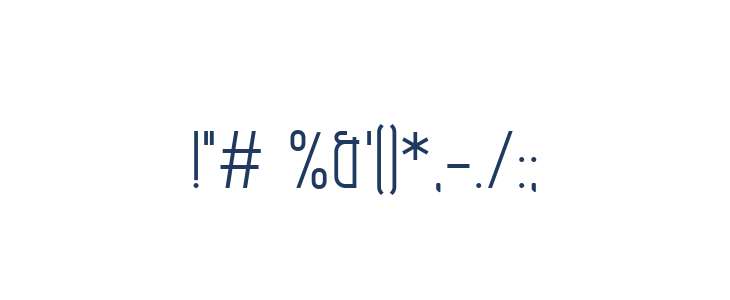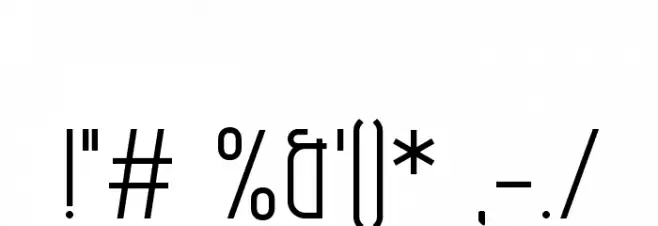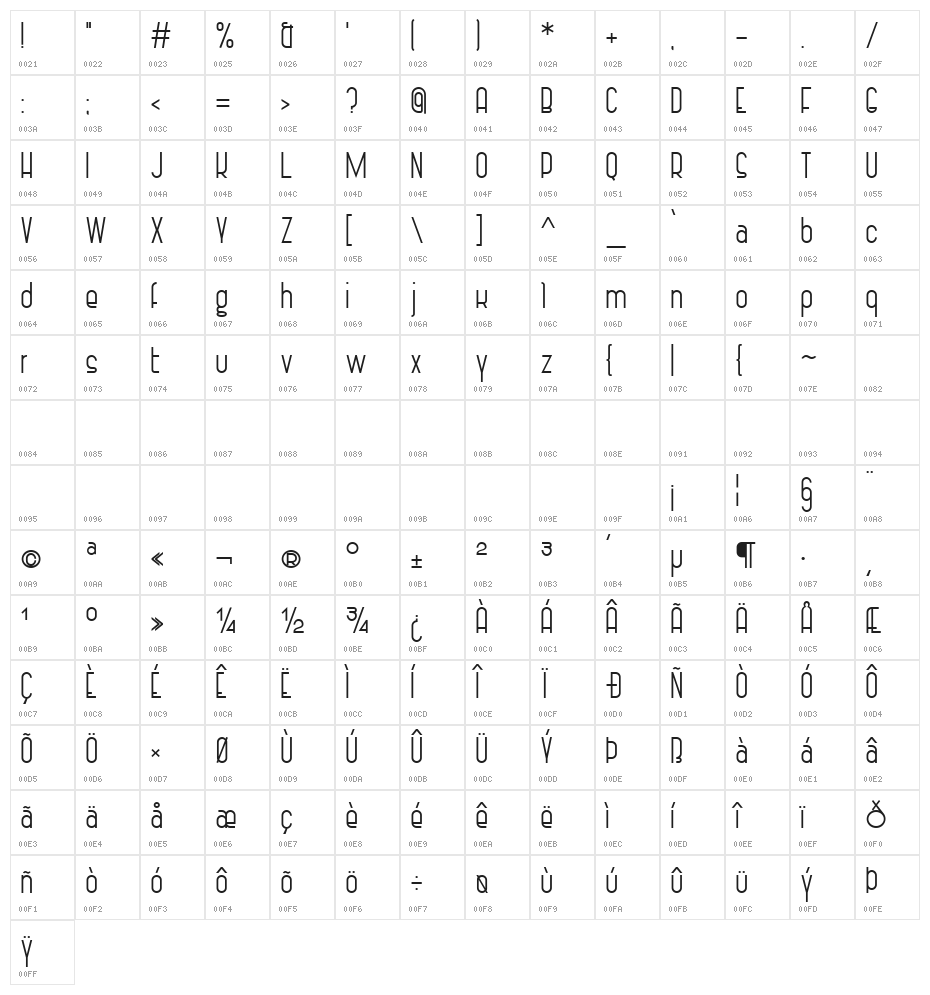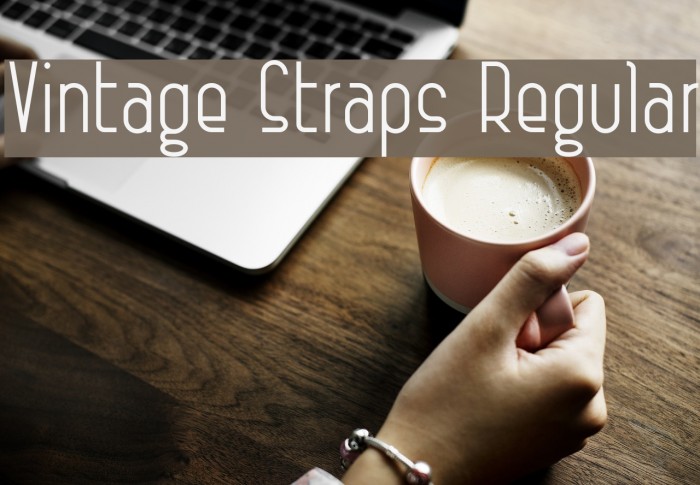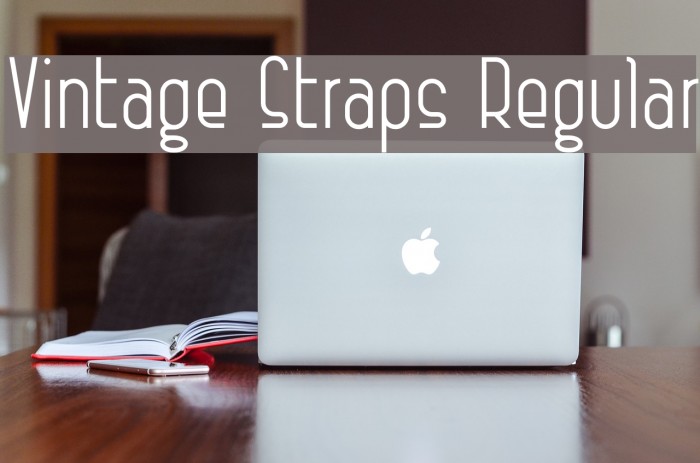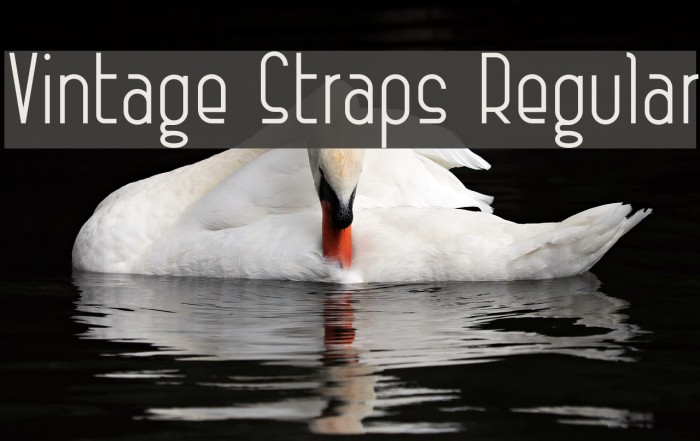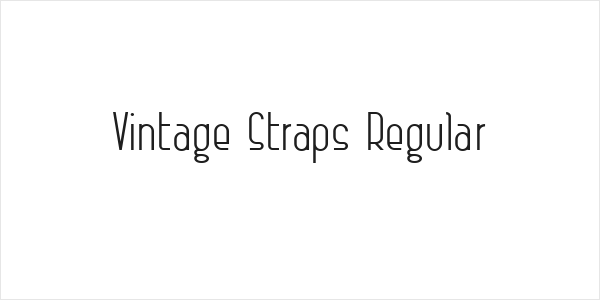
Vintage Straps Regular Font
Vintage Straps Regular Description
This typeface features a clean and modern aesthetic with a touch of vintage flair. The characters are tall and narrow, giving it a condensed appearance. The strokes are consistent in width, providing a uniform look across all letters. The uppercase and lowercase letters maintain a geometric structure, with subtle curves that soften the overall design. The numerals and special characters are designed to match the letterforms, ensuring a cohesive appearance. This font is versatile, suitable for both digital and print media, and can be used to create a sophisticated yet approachable look.